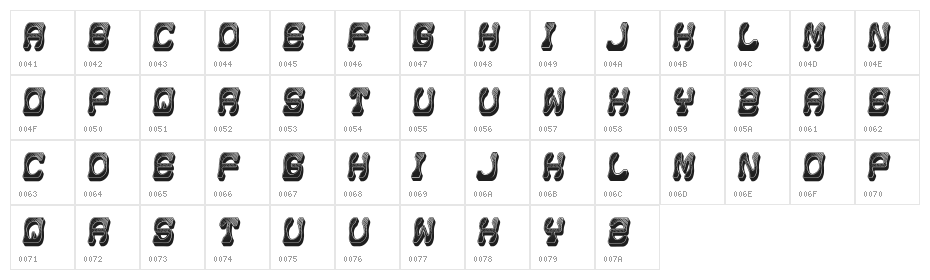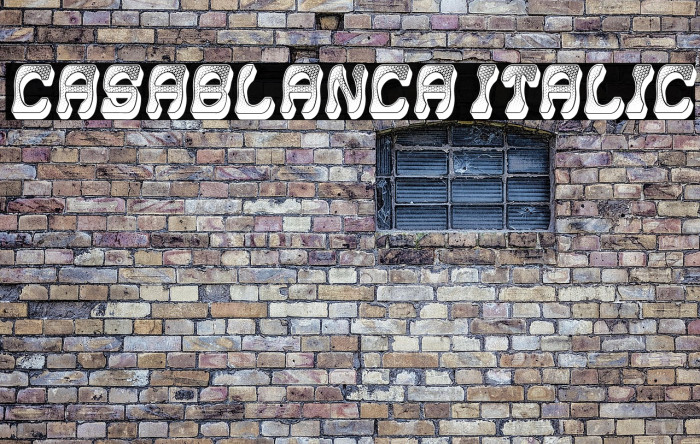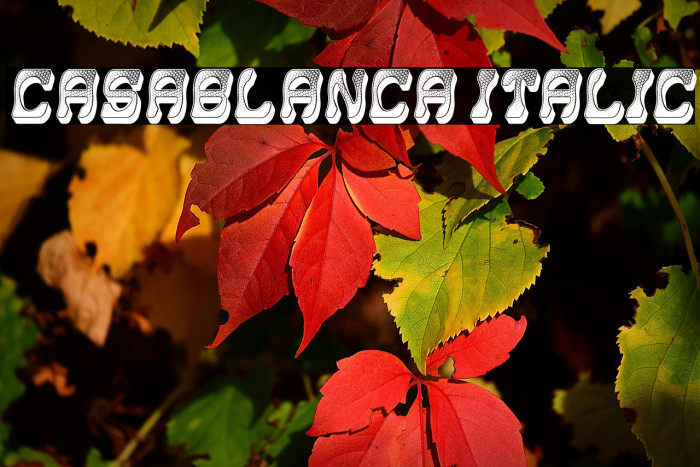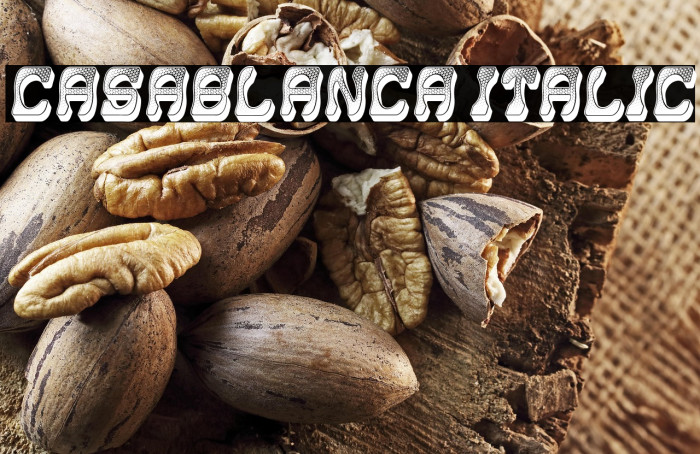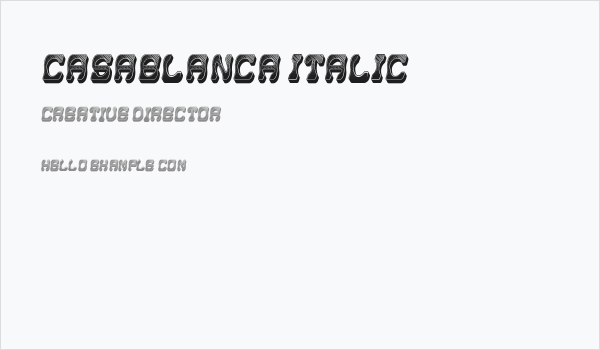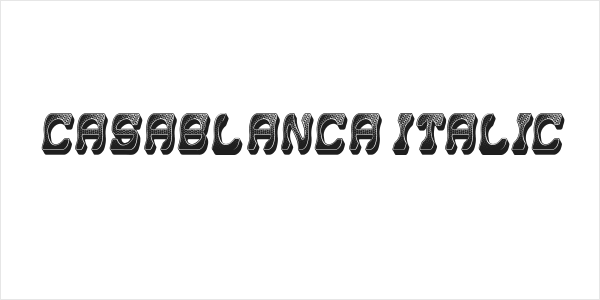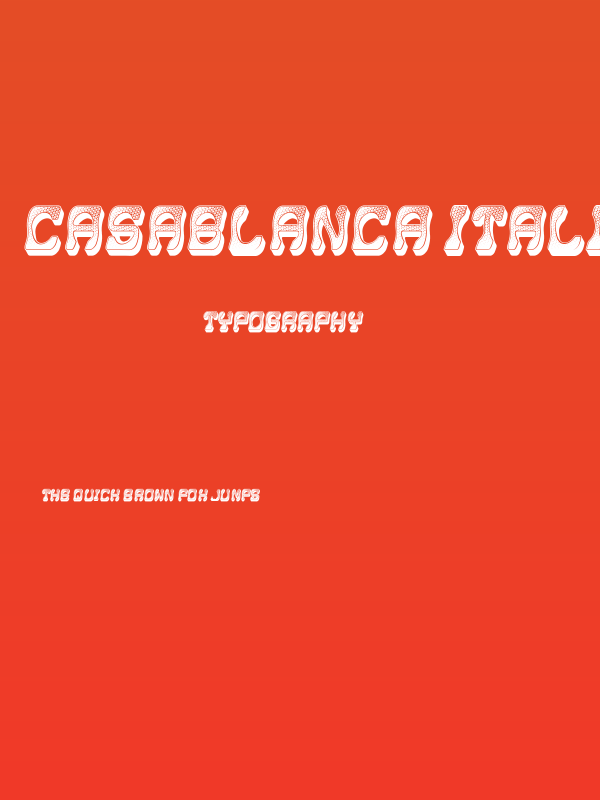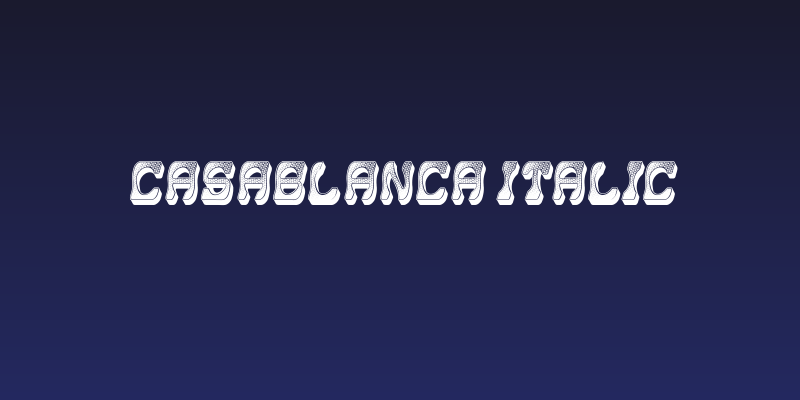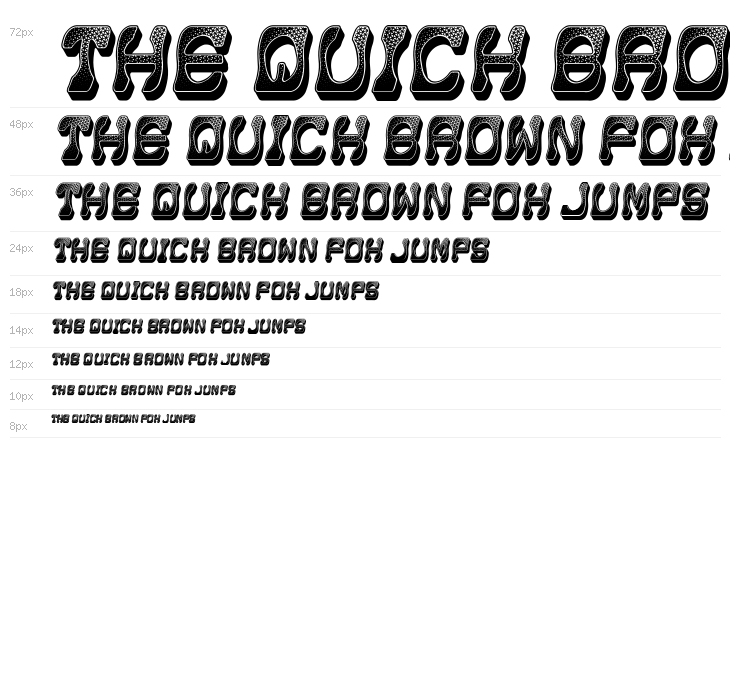
Casablanca Italic Font
Casablanca Italic Description
This font features a bold and decorative style with a unique 3D effect that gives it a striking appearance. The characters are outlined with a thick shadow, creating a sense of depth and dimension. The interior of each letter is filled with a dotted pattern, adding texture and visual interest. The overall design is playful yet sophisticated, making it suitable for eye-catching displays. The font maintains consistent proportions across all characters, ensuring readability while still offering a distinct and artistic flair.